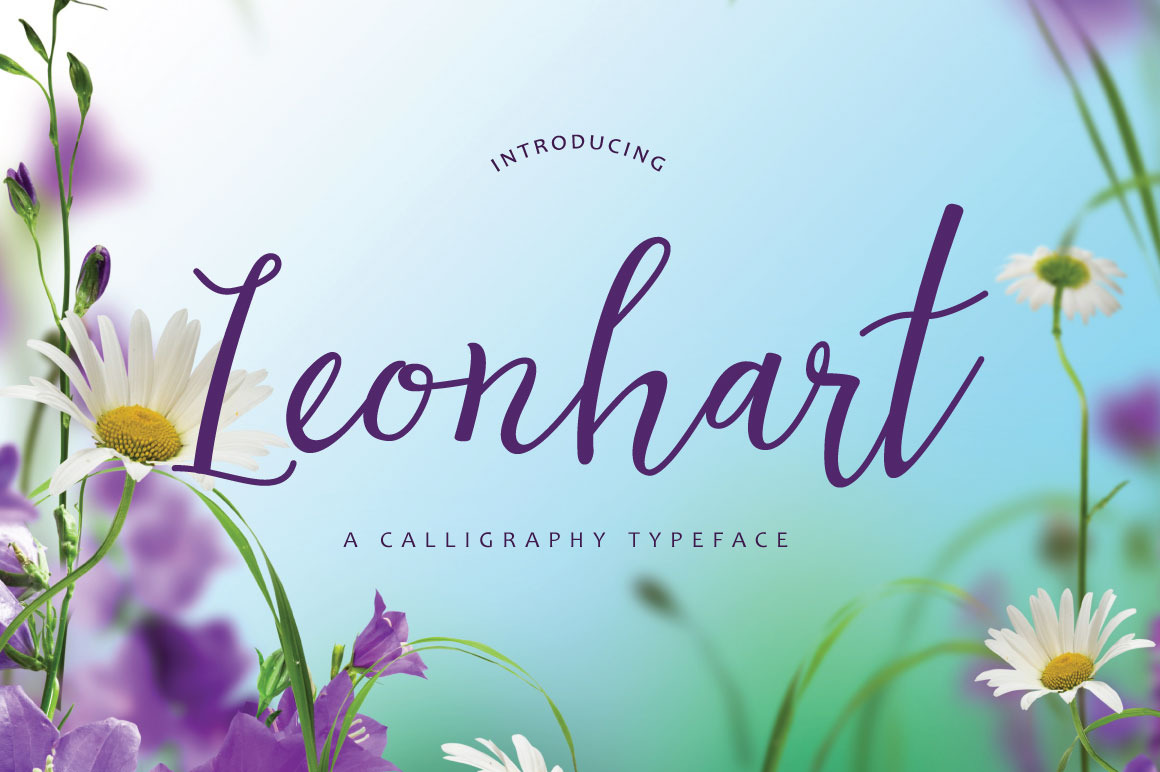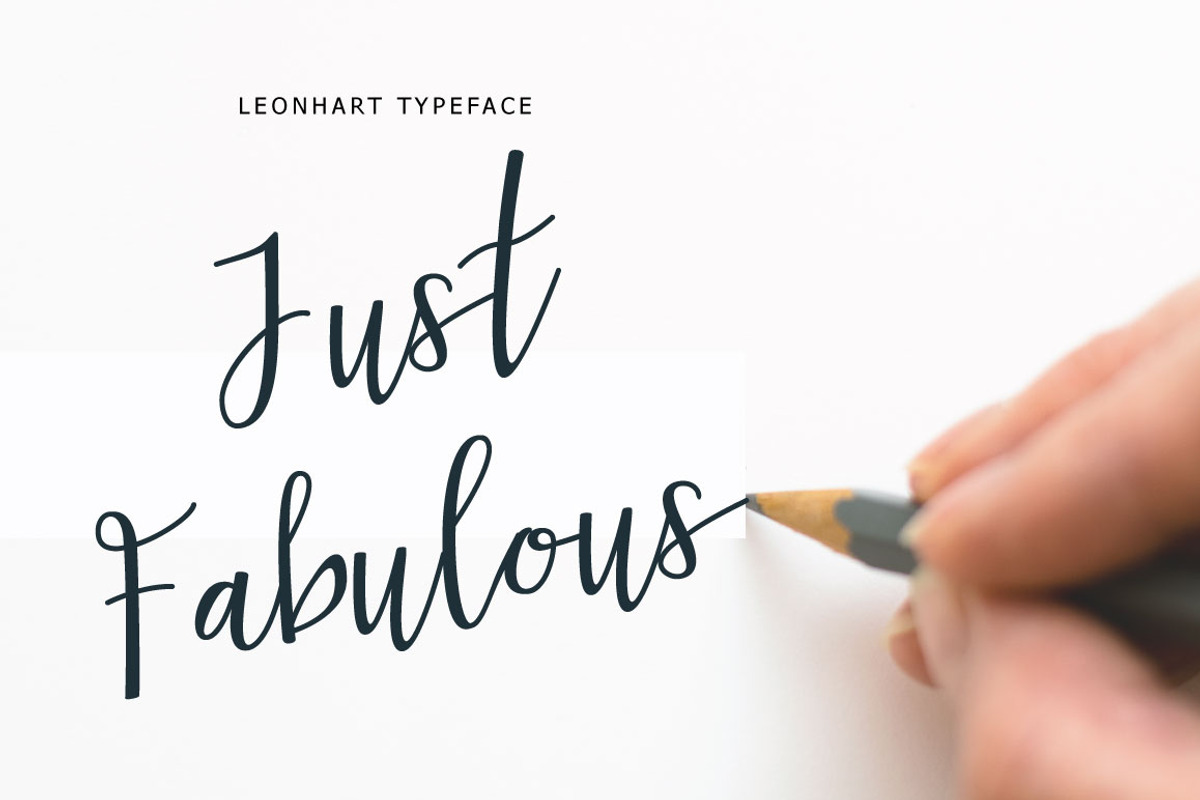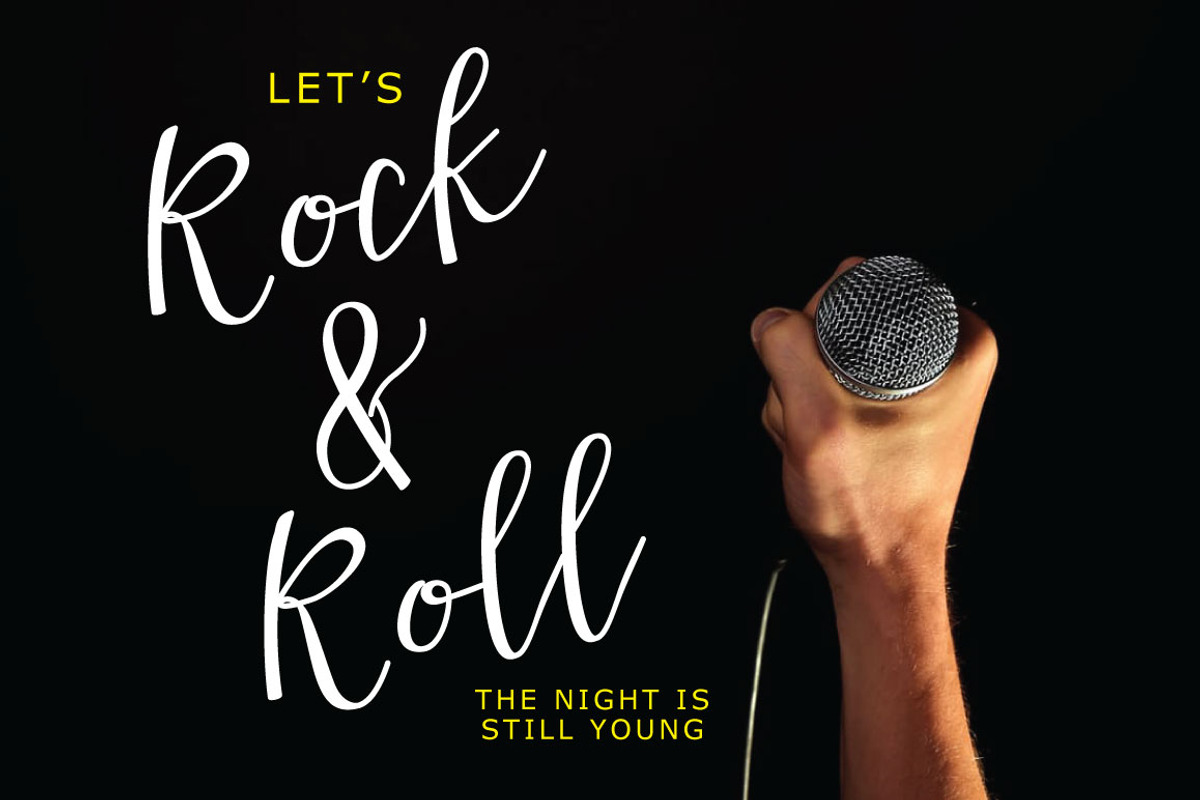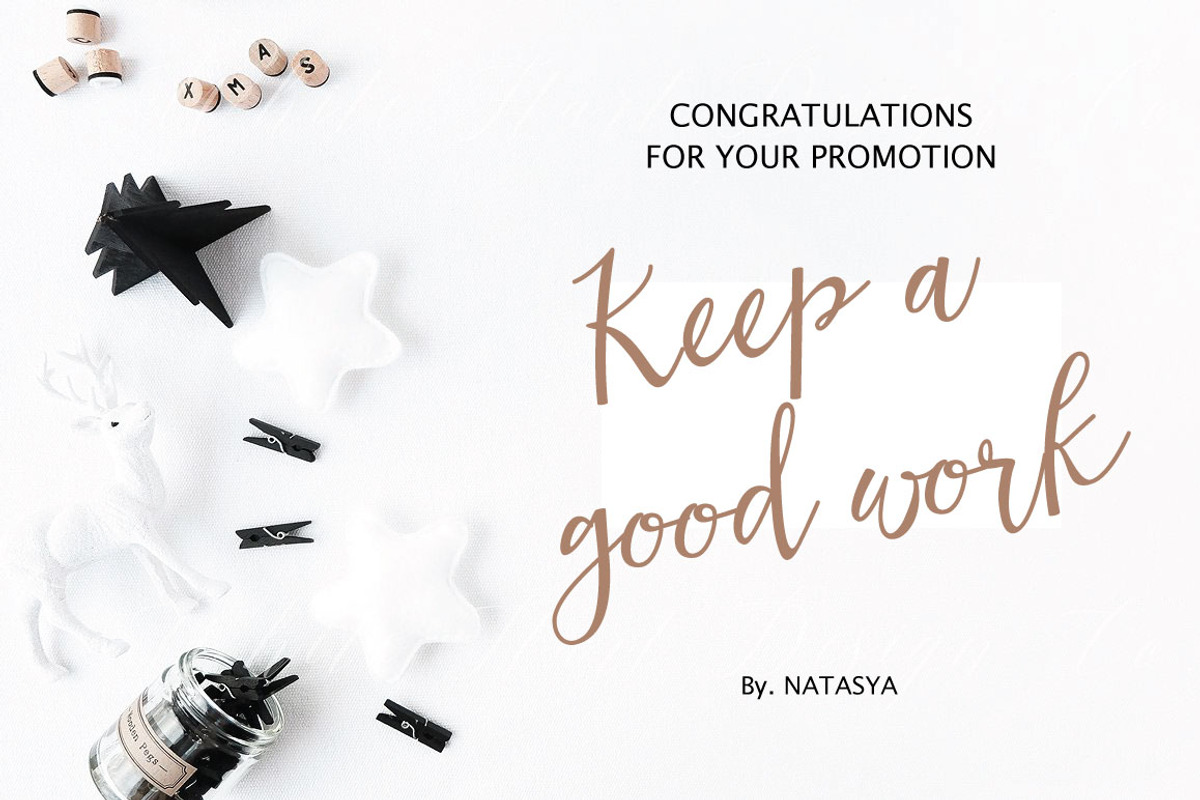
Leonhart Typeface
Leonhart is a bouncy script font which strong, heavy and delighted feeling. Create with love and add your design with romantic feeling too. Leonhart is just what you've been looking for!
Use Leonhart on all of your projects to give sturdy and deep view font. In particular would look great on, branding projects, logos, product packaging, posters, invitations, greeting cards, titles, blogs, everything that includes personal charm and you name it. ;)